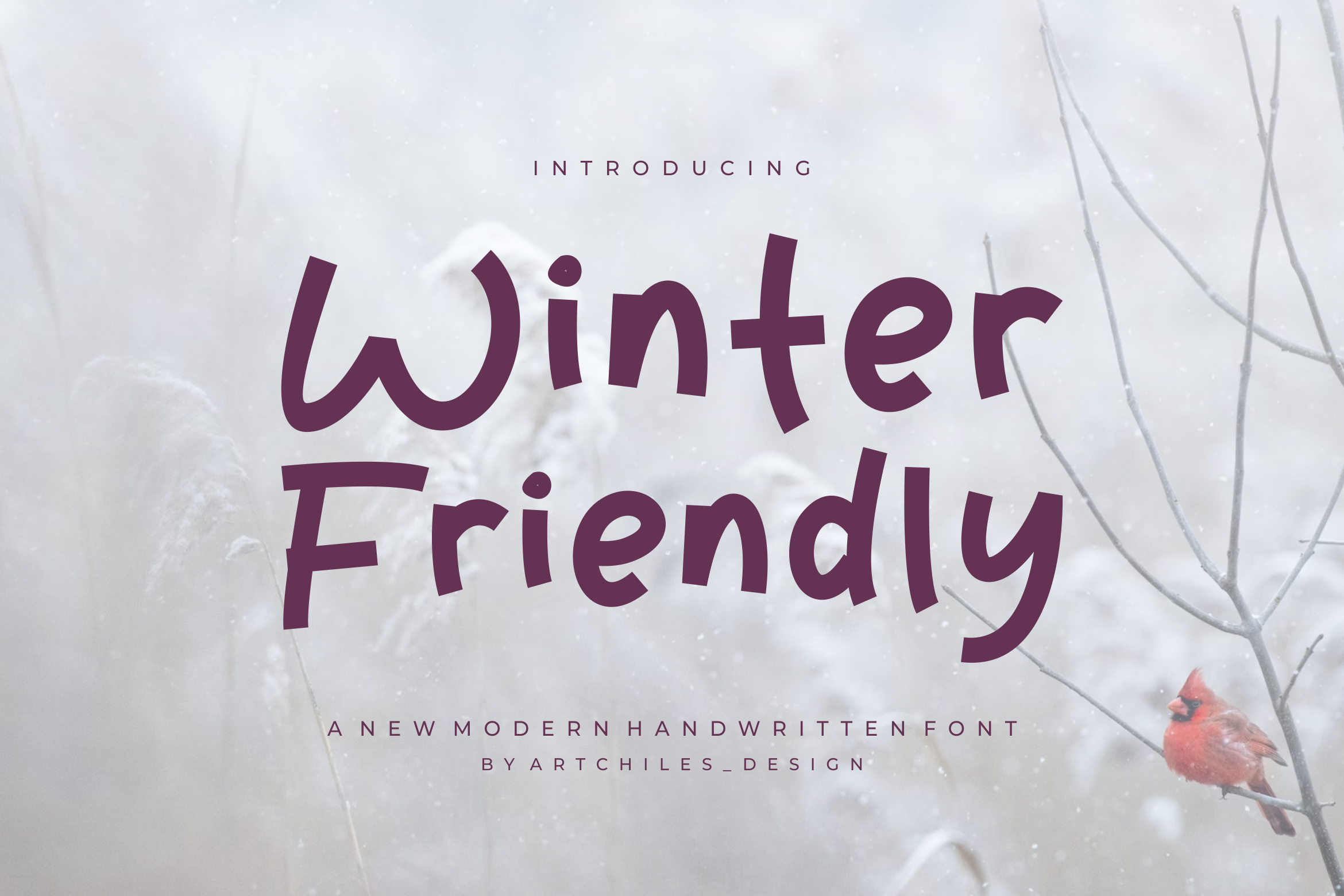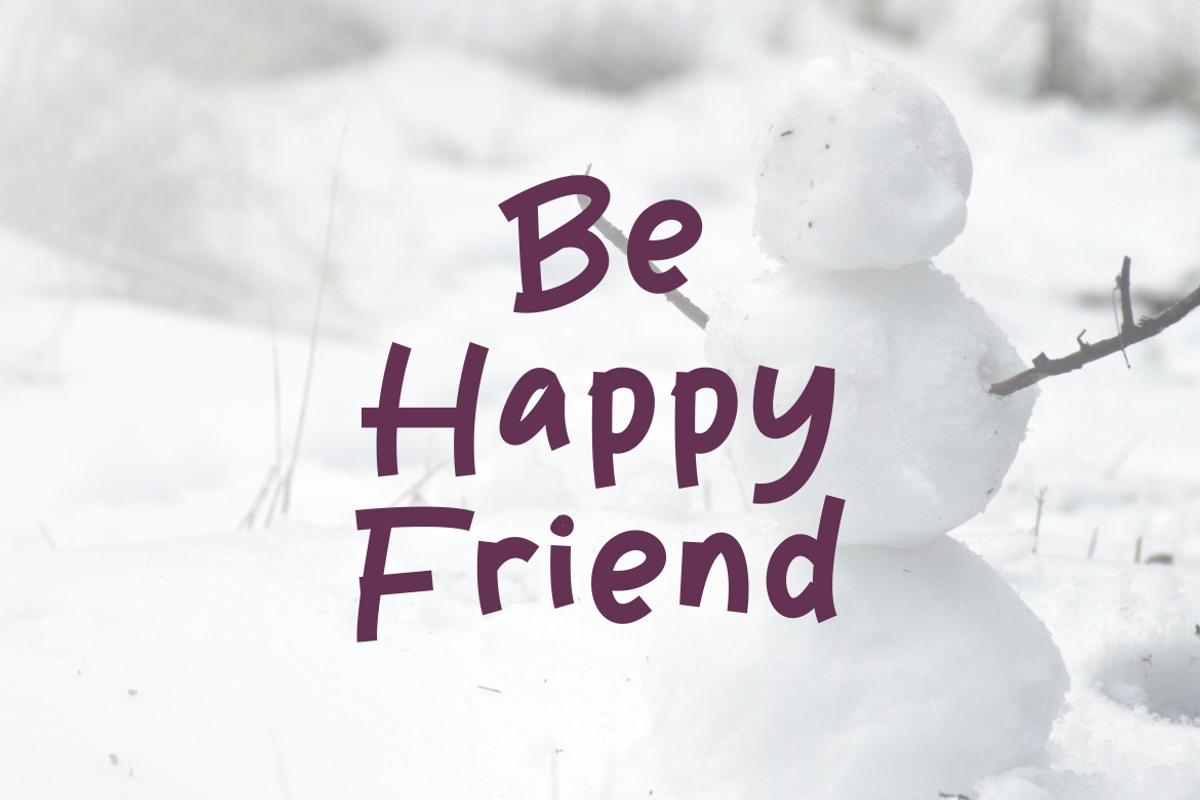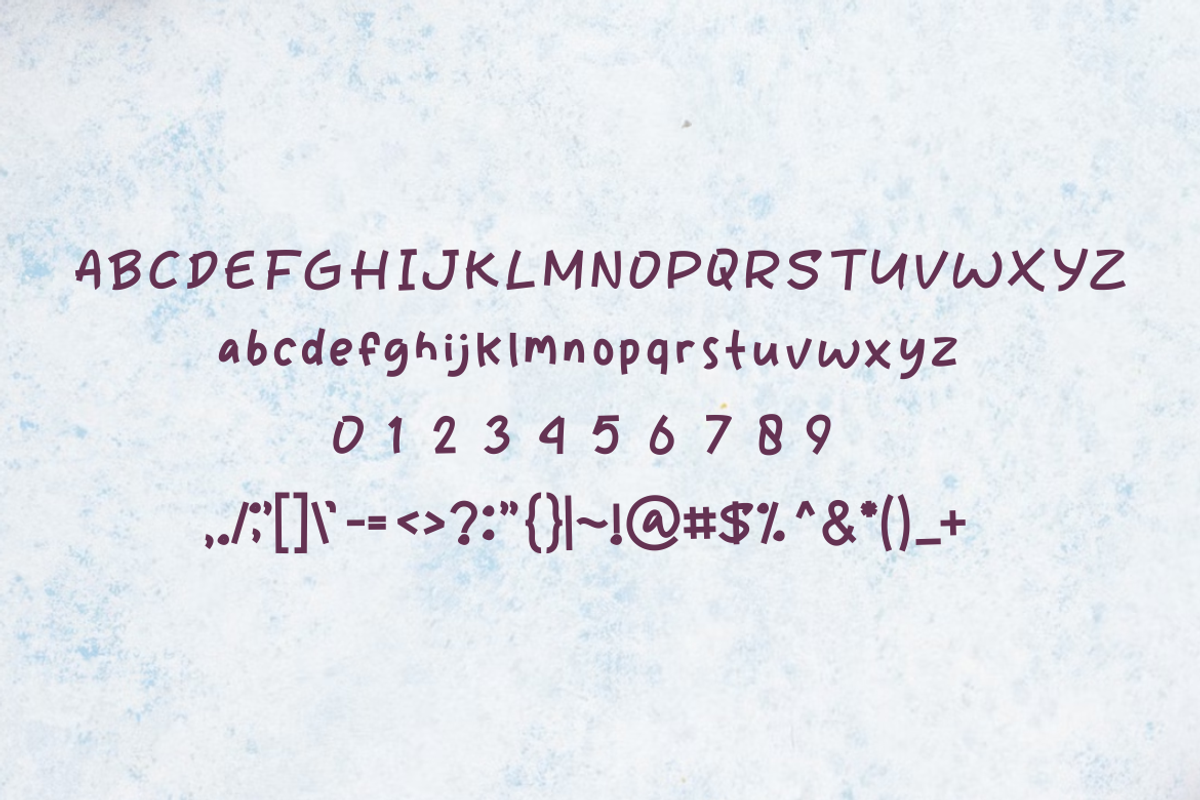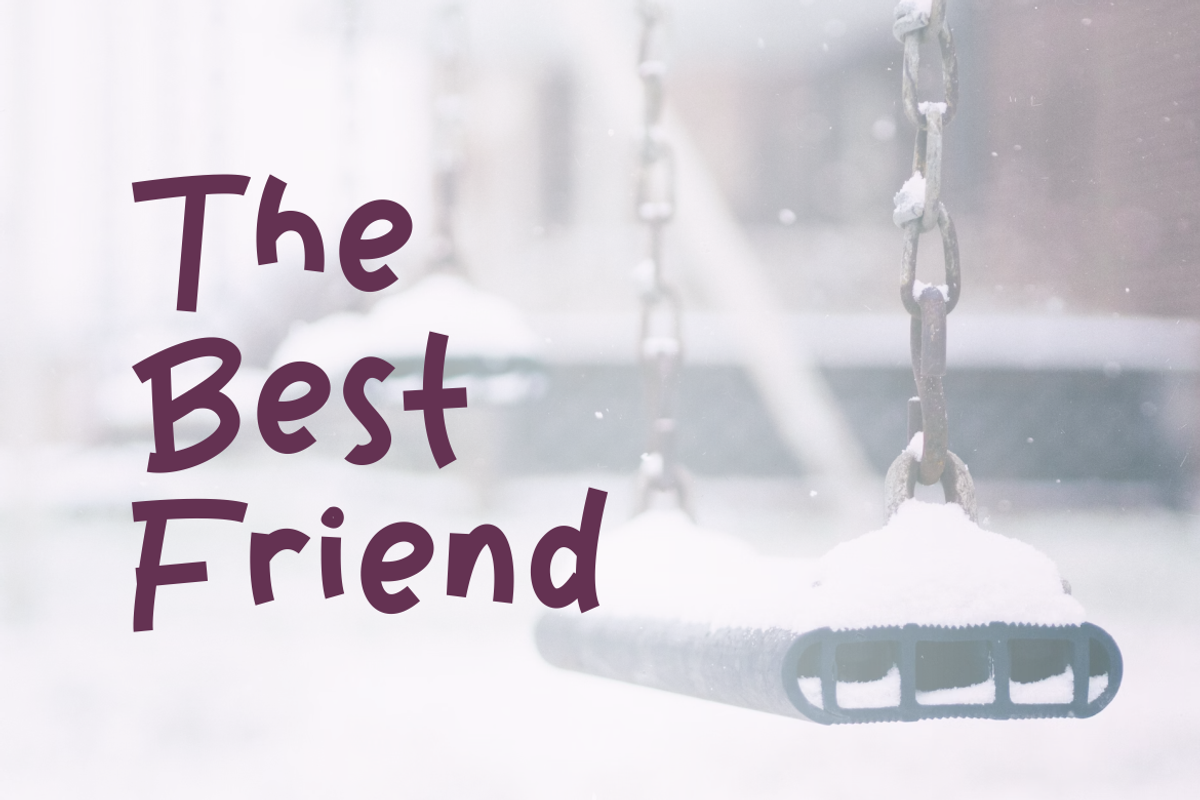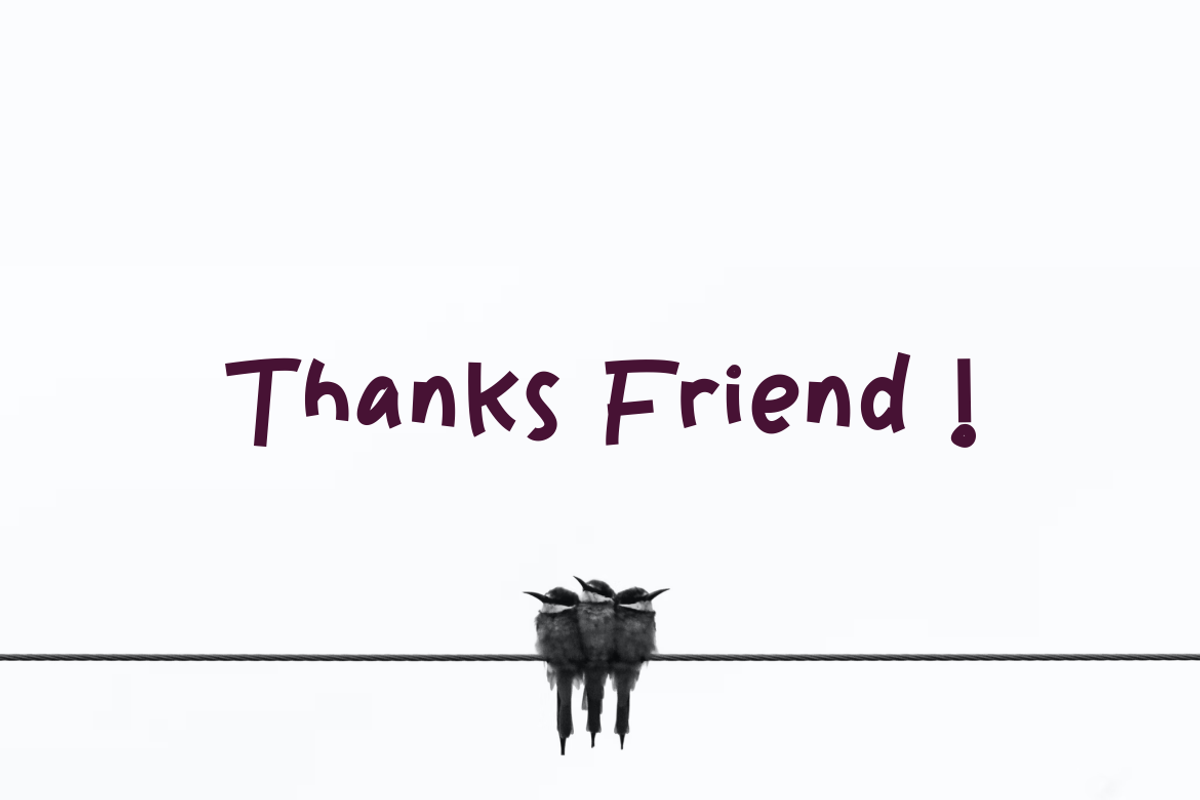
Winter Friendly - Font
- Modern Font is a bold and authentic display font. The font is suitable for any branding project like logo, t-shirt printing,, and many more. outstanding in a wide range of contexts.